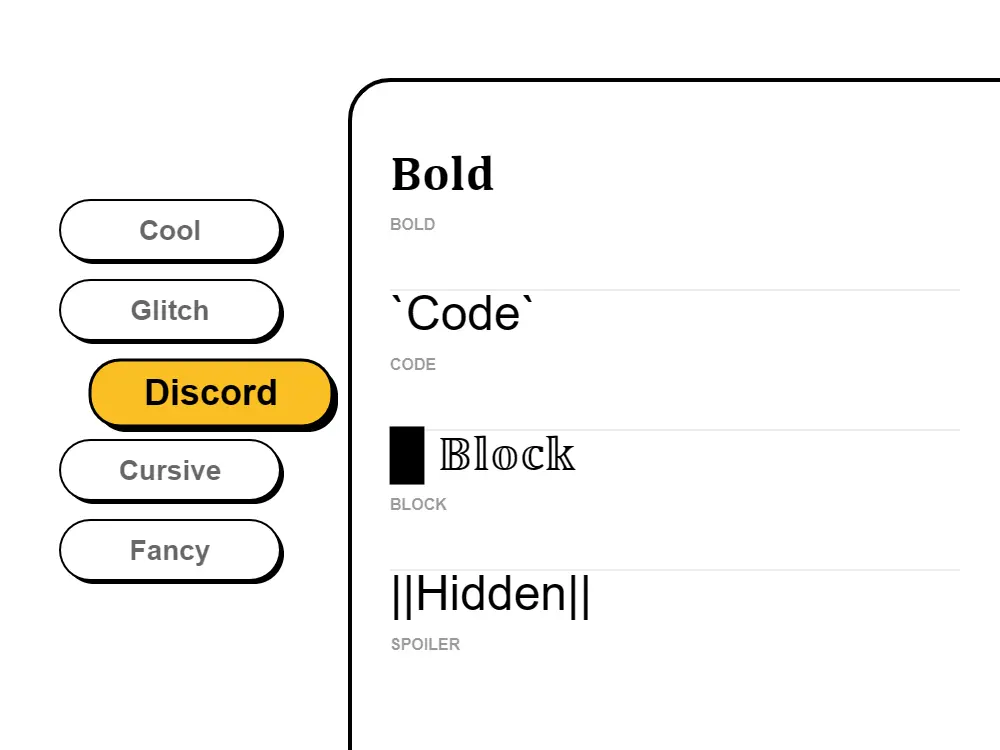
To use Discord fonts in your username or nickname: 1) Type your desired text in our Discord font generator. 2) Browse font styles including gaming, cyberpunk, aesthetic, and cool fonts. 3) Click to copy your favorite styled text. 4) Open Discord → User Settings → Edit → paste into your username or server nickname. The fonts will display instantly across all Discord servers!
Yes! Discord fonts work perfectly in server names, channel names, category names, user nicknames, role names, and messages. They help organize servers visually, create themed channels, and establish server personality. Many popular Discord servers use custom fonts to make their community stand out and attract more members.
Absolutely! Our Discord fonts use Unicode characters that work across all Discord platforms - desktop app (Windows, Mac, Linux), web browser, iOS app, and Android app. The fonts maintain their appearance on all devices, so your styled text looks the same whether you're on phone or computer.
The best Discord fonts for gaming servers include: Cyberpunk fonts (futuristic, tech aesthetic), Neon fonts (bright, eye-catching), Glitch fonts (edgy, gaming vibe), Bold fonts (strong, impactful), and Gaming-style fonts (esports aesthetic). Our generator offers gaming-optimized font styles perfect for clan tags, server names, and gamer usernames.
Discord fonts help server owners and moderators create professional, organized servers. Use distinctive fonts for announcements, rules, important information, and role names. This helps critical messages stand out from regular chat, improves communication effectiveness, and creates a more engaging community experience that attracts and retains members.
Yes! Discord fonts work in bot messages, embed titles, embed descriptions, button labels, and all Discord text fields. Many Discord bots use custom fonts to create more visually appealing messages, announcements, and interactive elements. The Unicode characters are fully supported in Discord's API.
The most popular Discord font styles in 2024 are: Cyberpunk fonts (futuristic gaming aesthetic), Neon fonts (bright, attention-grabbing), Glitch fonts (edgy, tech vibe), Bold fonts (strong emphasis), Aesthetic fonts (trendy, stylish), and Gaming fonts (esports style). Our generator offers all these popular styles plus more unique Discord fonts.
Yes! Discord fonts work in all channel types including text channels, voice channels, stage channels, forum channels, and announcement channels. You can use custom fonts to create themed channel names, organize your server visually, and make your Discord community more engaging and professional-looking.
Essential for RP servers! Discord fonts help players create character voices, distinguish between in-character and out-of-character communication, and enhance immersive storytelling experiences that make role-playing more engaging.
Discord supports native Markdown formatting inside chat messages: **text** makes text bold, *text* or _text_ makes it italic, __text__ underlines it, ~~text~~ strikes through it, and ```text``` creates a code block. However, Markdown only works inside Discord messages — it does not apply to usernames, server names, or channel names. Our Unicode font generator creates stylized characters that work everywhere in Discord, including usernames and server names where Markdown is not supported.
No Discord Nitro subscription is needed! All fonts from our generator use standard Unicode characters — part of the universal character standard supported by every device and platform. Your stylized Discord username or server name displays correctly for all users whether they have Discord Nitro or a free account. Unicode fonts are completely free with no tier restrictions.
Discord uses a custom typeface called "gg sans" as its default interface font (introduced in 2023, replacing the earlier "Whitney" font). This system font applies to the entire Discord interface and cannot be changed through official Discord settings. However, you can make your username, server name, and channel names appear unique by using Unicode styled characters from our generator — they display as distinctive stylized text while working within Discord's standard font rendering, no app modifications needed.